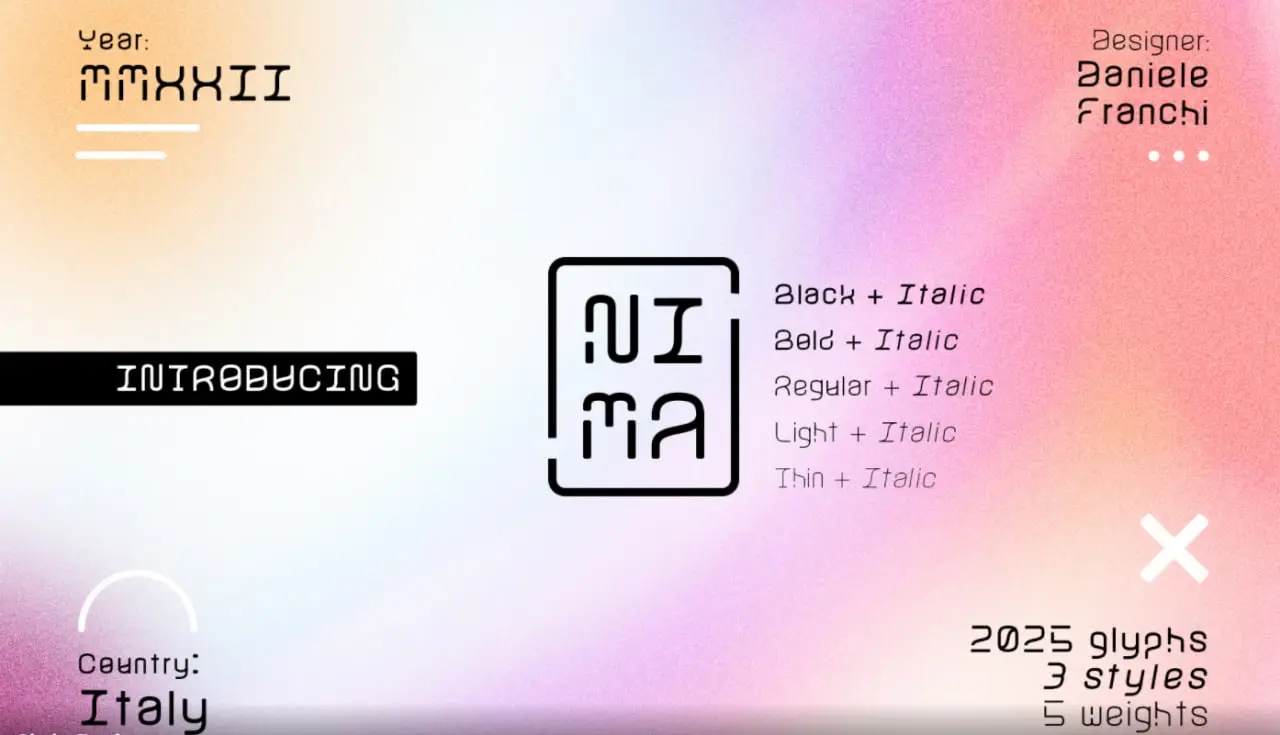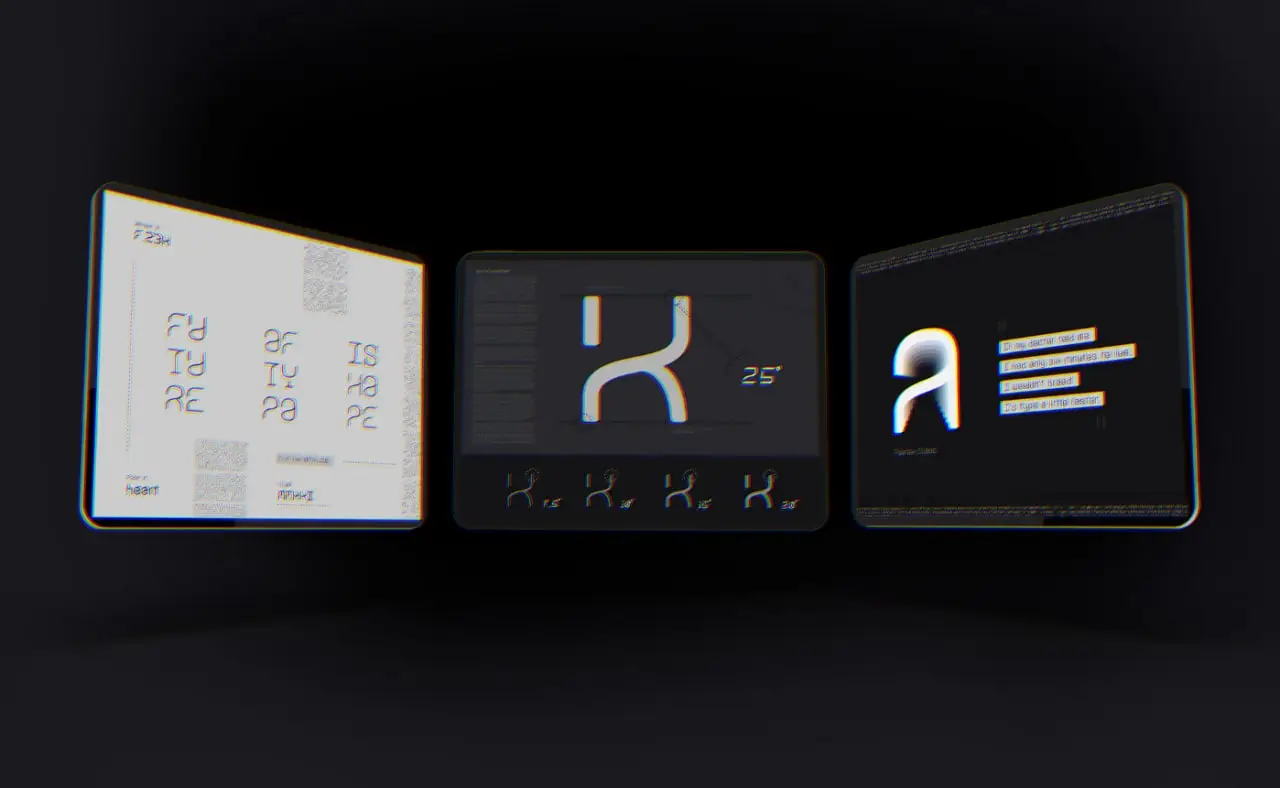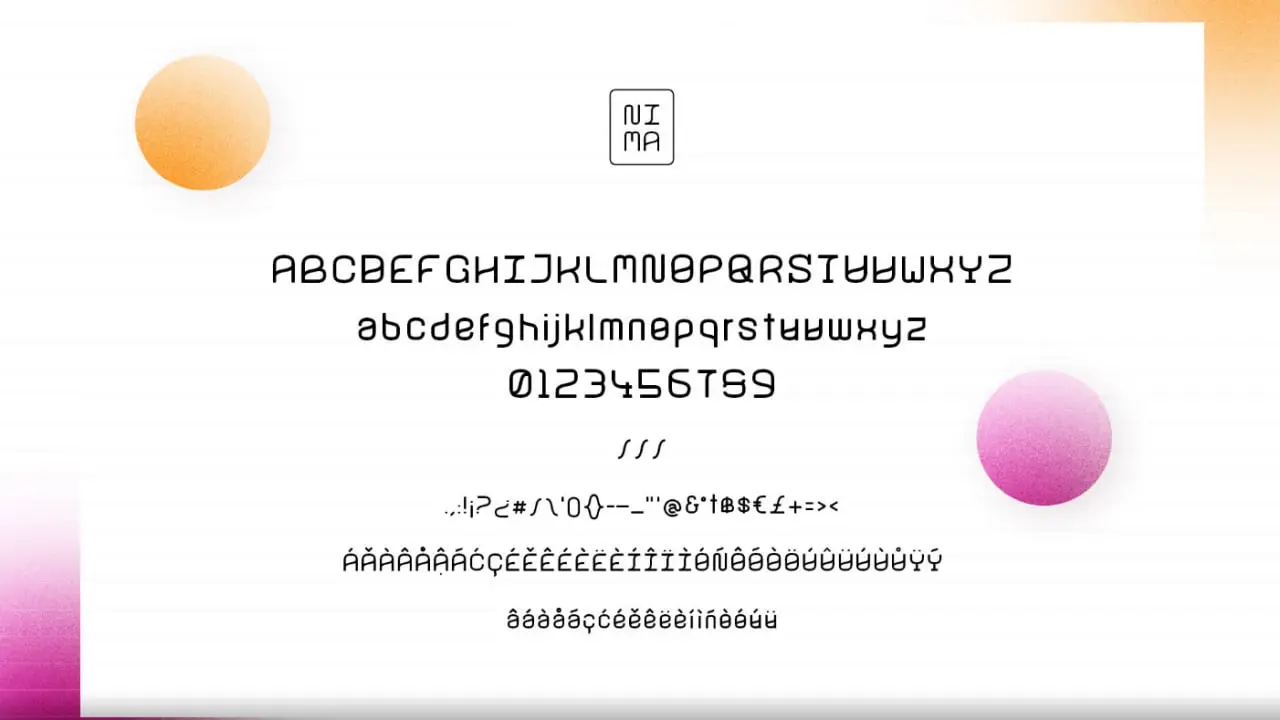
Nima-Modern Display Typeface
The Nima-Modern Display Typeface is a striking and elegant font designed for contemporary branding and design projects. With its unique character shapes and modern aesthetics, this typeface is perfect for creating eye-catching logos, headlines, and promotional materials.
• Stylish display font with a modern flair
• Multiple weights for versatile design options
• Uppercase and lowercase letters, numerals, and punctuation
• Designed for high readability in both print and digital formats
• Weight options: Regular, Bold, Italic
• Ideal for branding projects, including logos and business cards
• Great for web design, ensuring a modern look on websites
• Perfect for print materials such as posters, flyers, and magazines